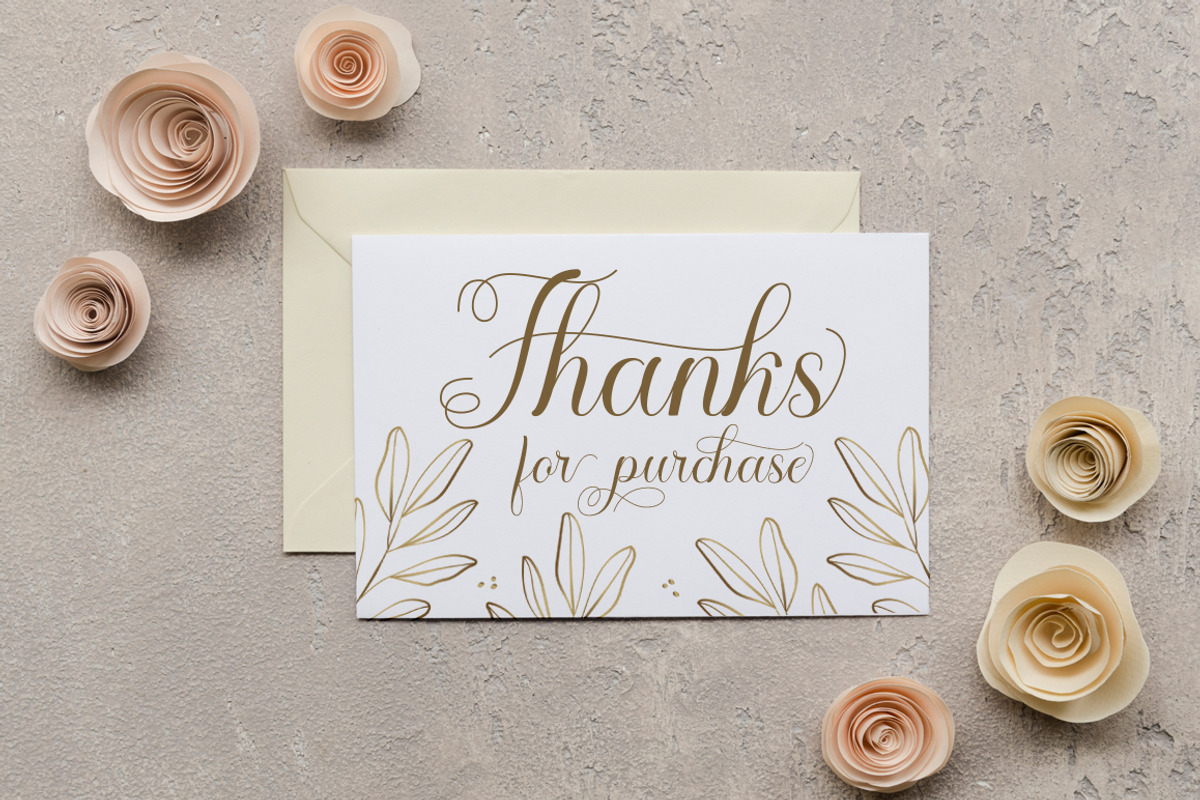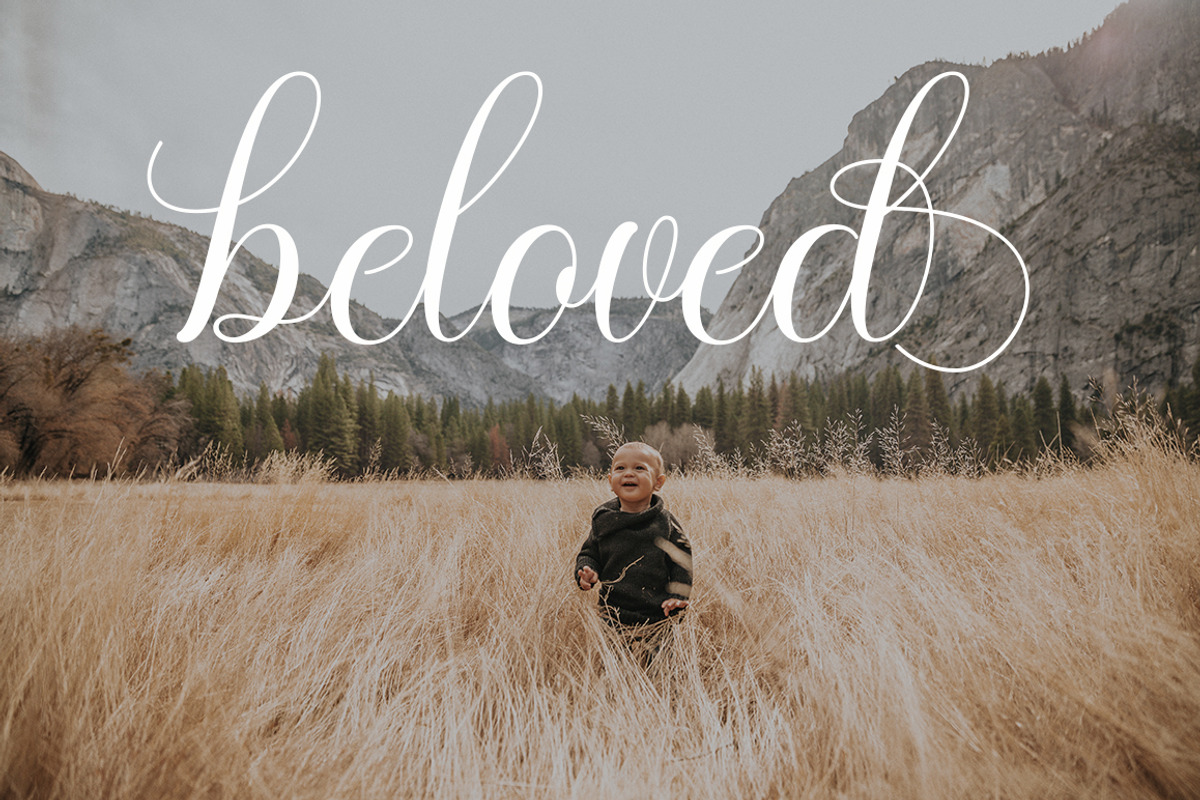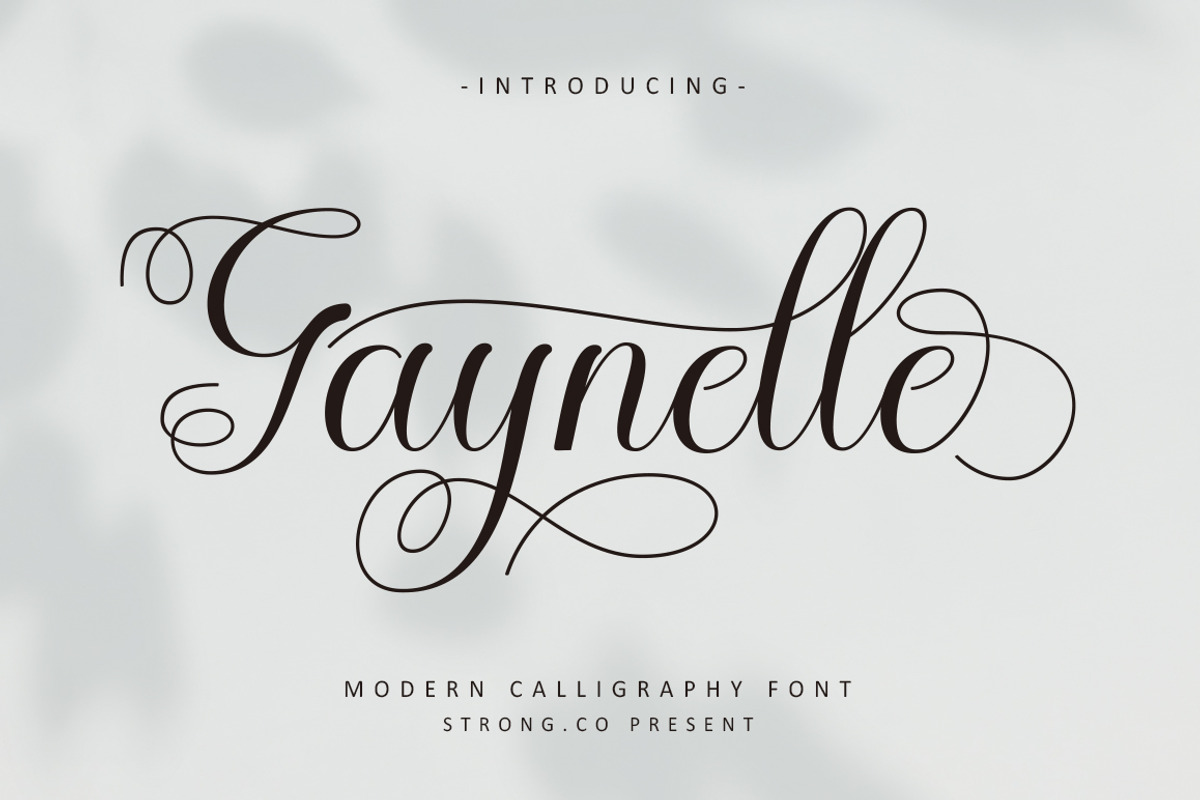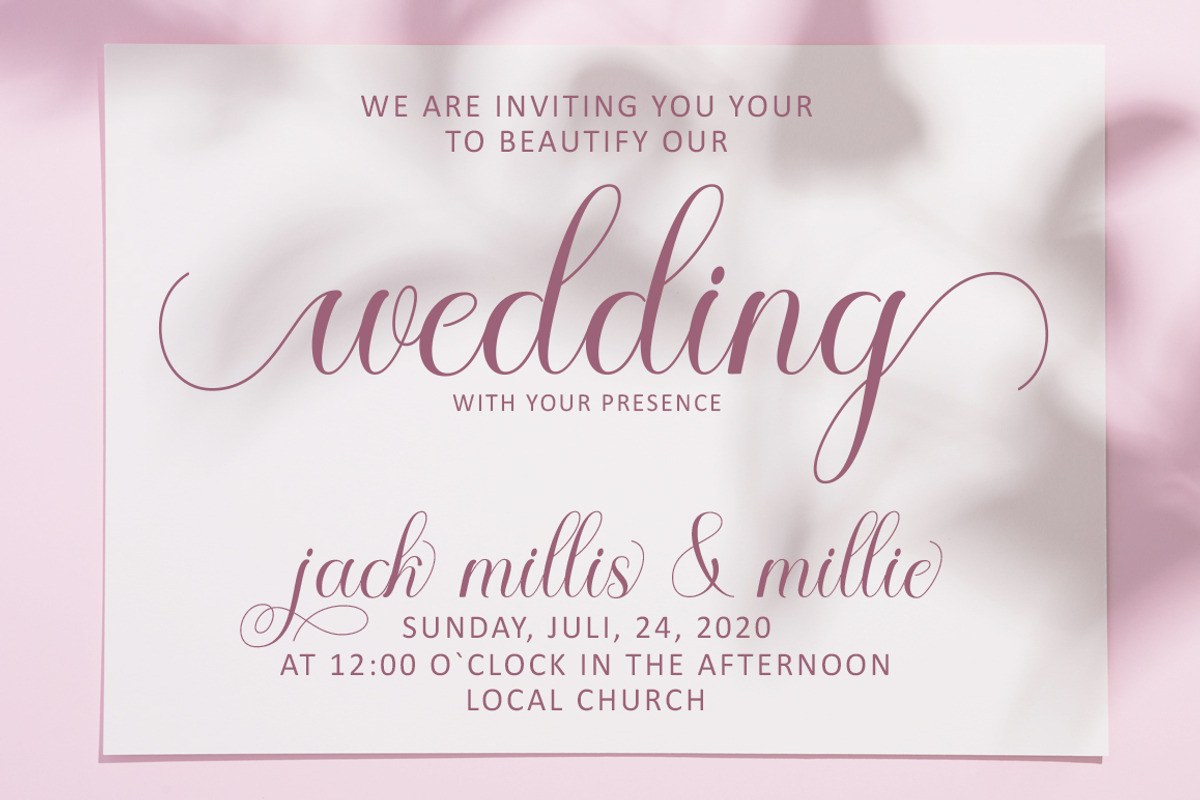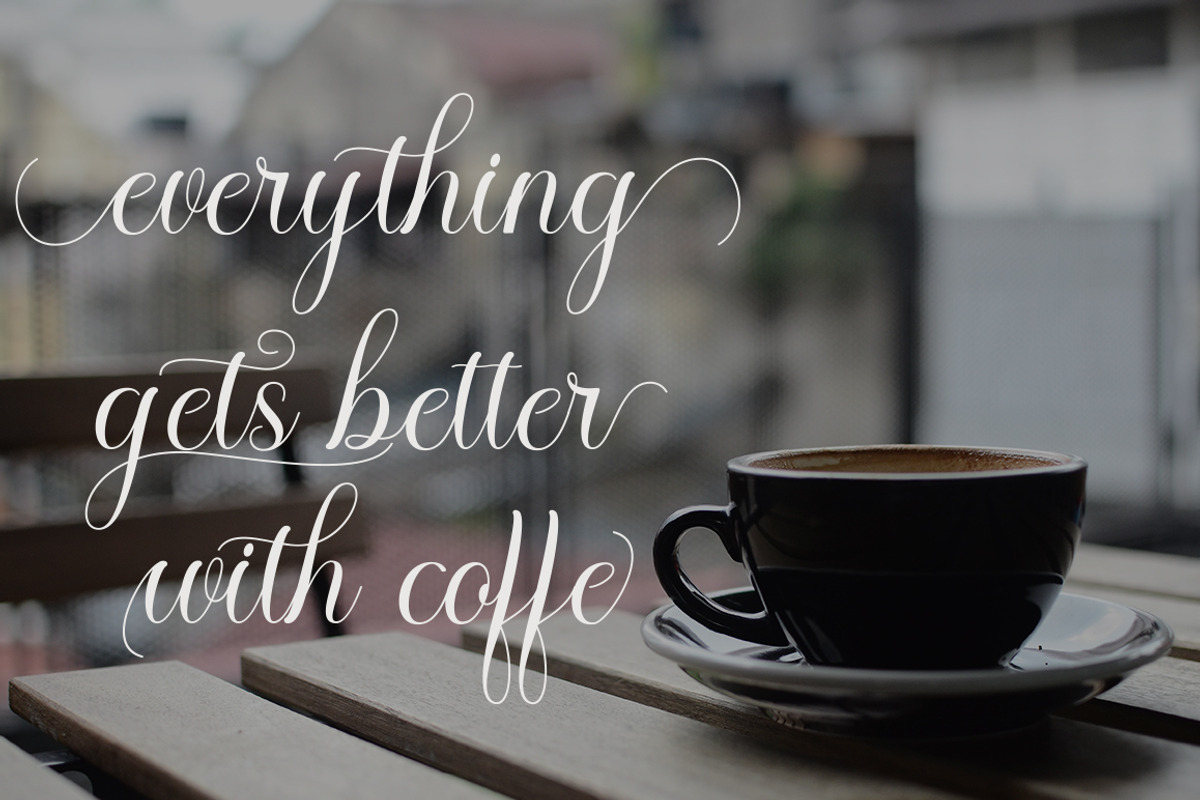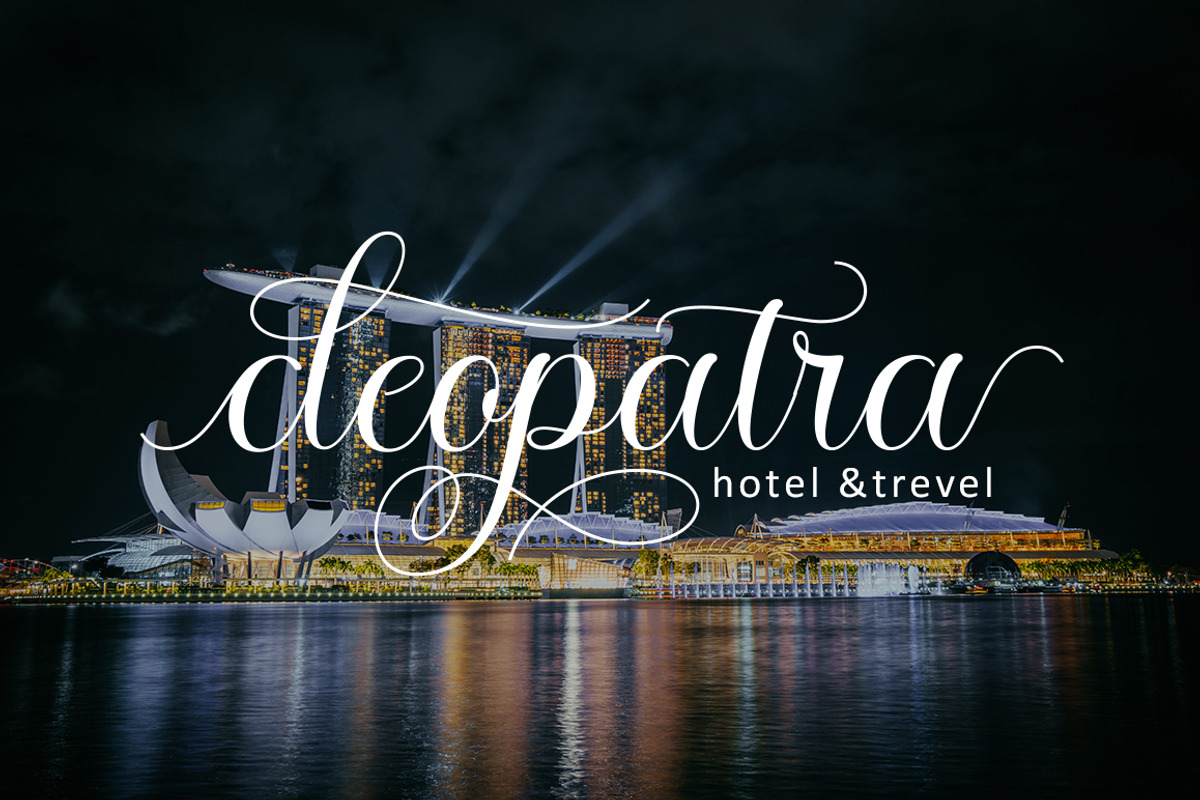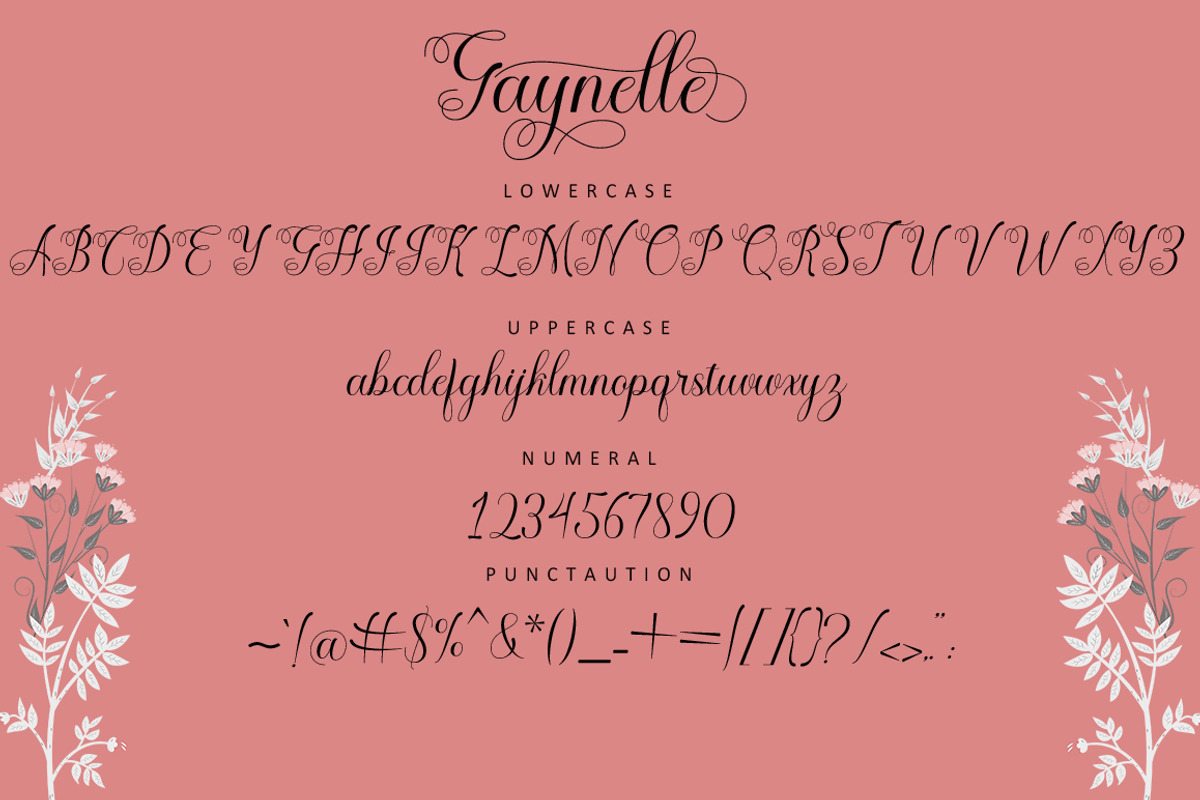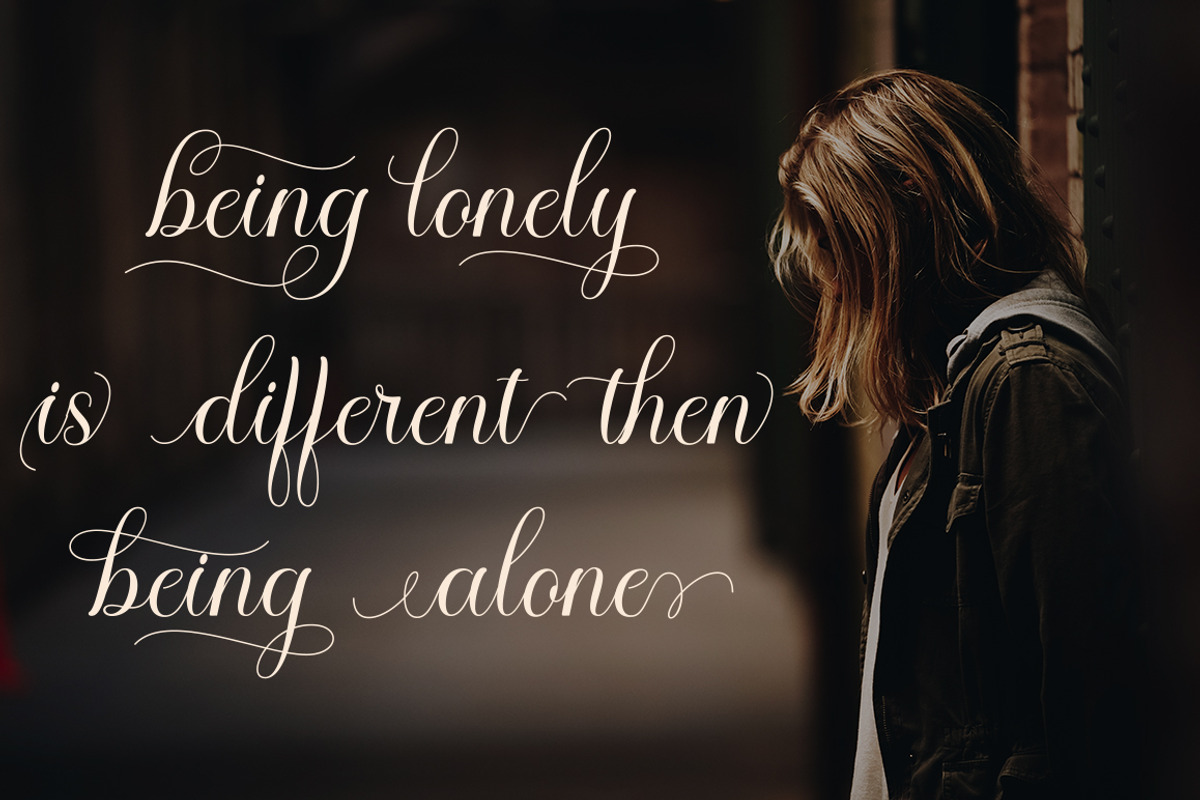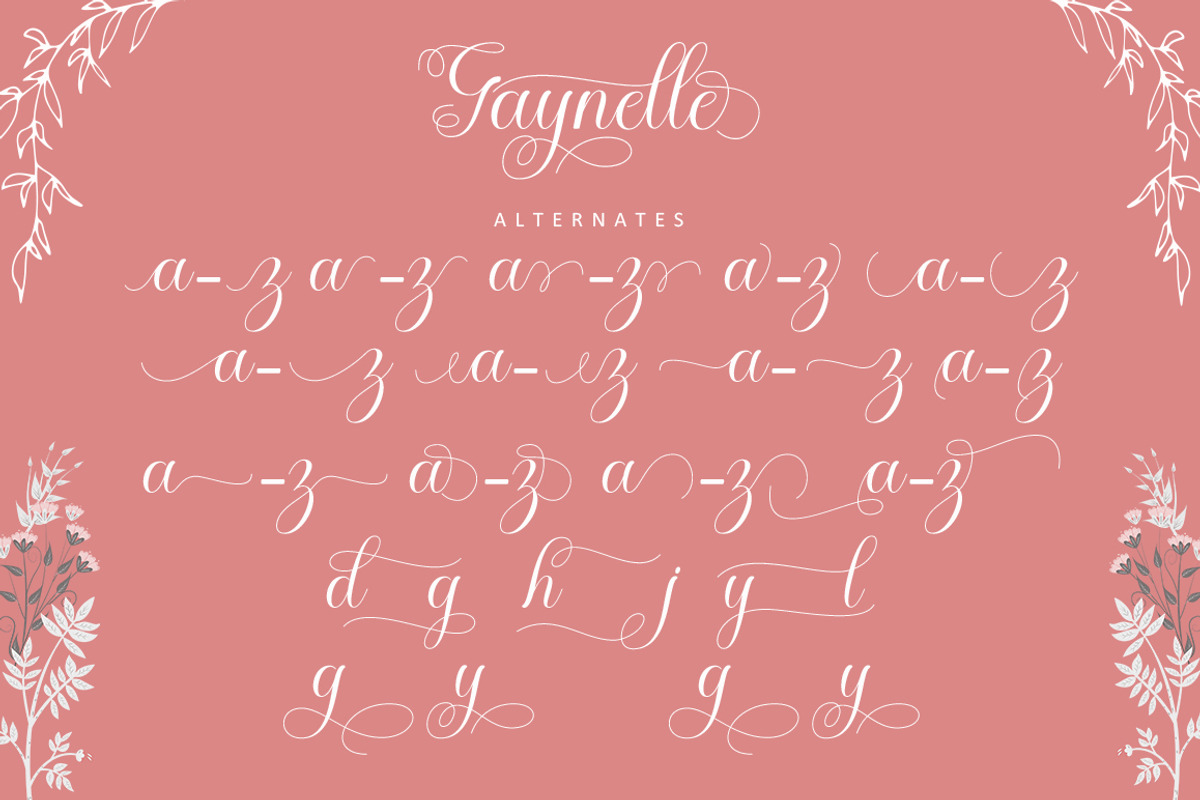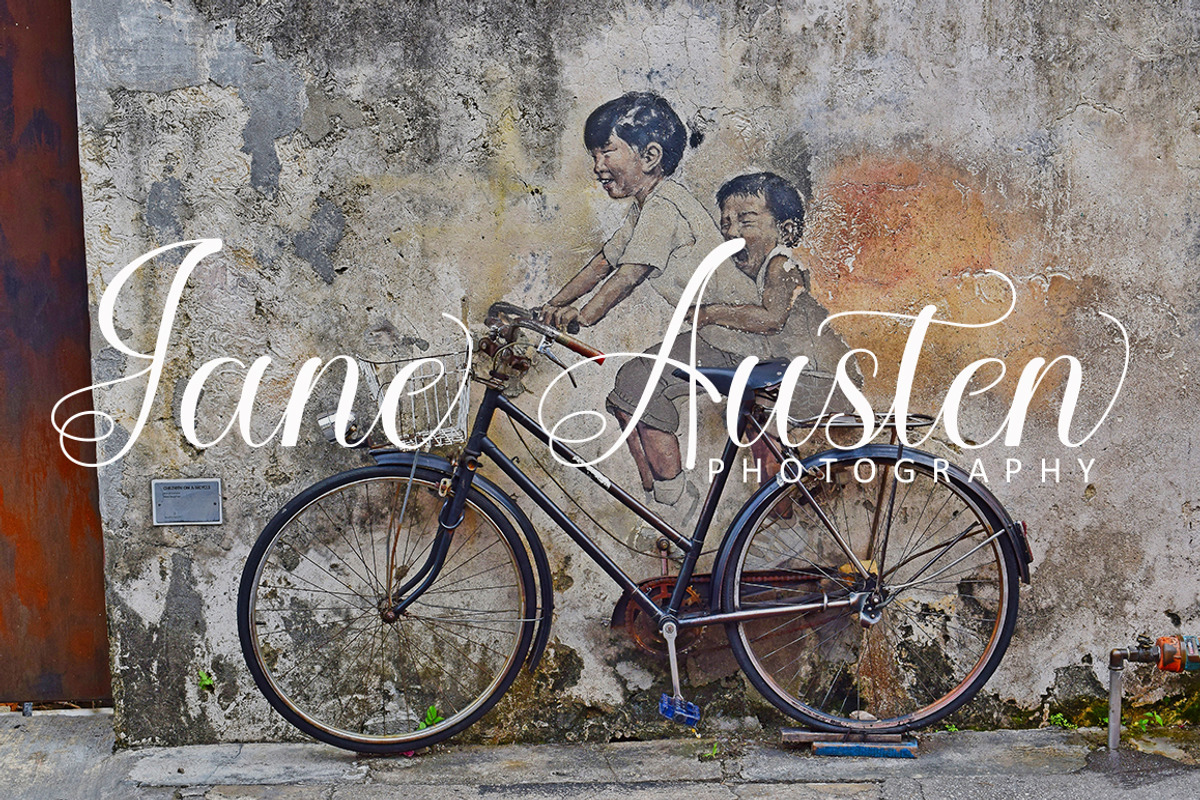
Gaynelle Script
Gaynelle is a sweet, romantic calligraphy typeface with characters dancing along the baseline. It has a casual yet elegant touch. It can be used for various purposes such as logos, wedding invitations, titles, t-shirts, letterheads, name boards, labels, news, posters, badges etc.
The font includes OpenType features with alternative styles, ligatures, and multiple language support. This font is PUA encoded which means you can access all of the glyphs and swashes with ease!